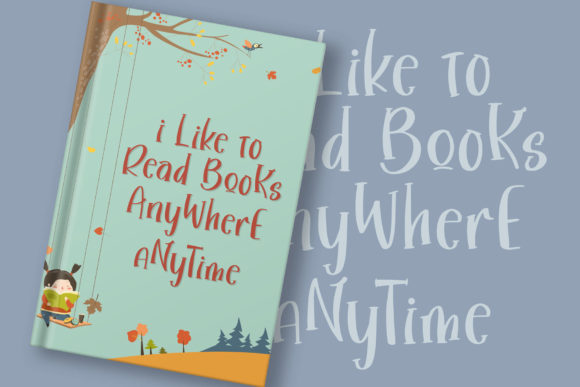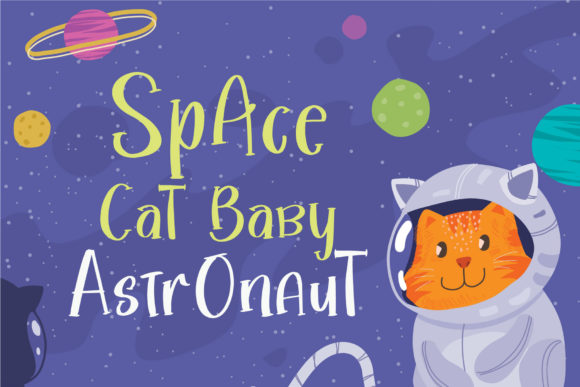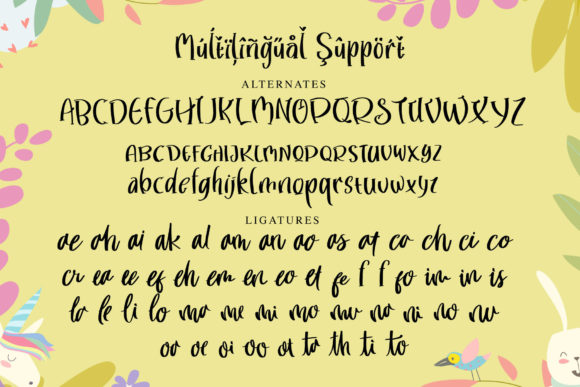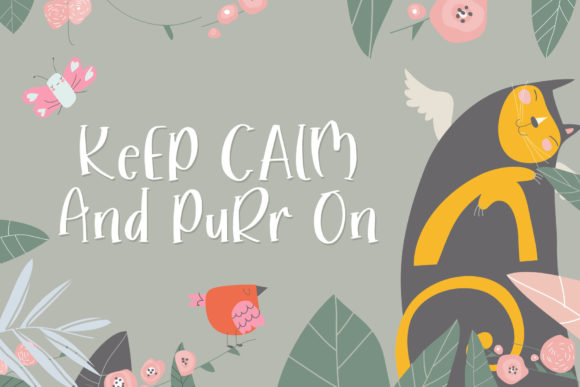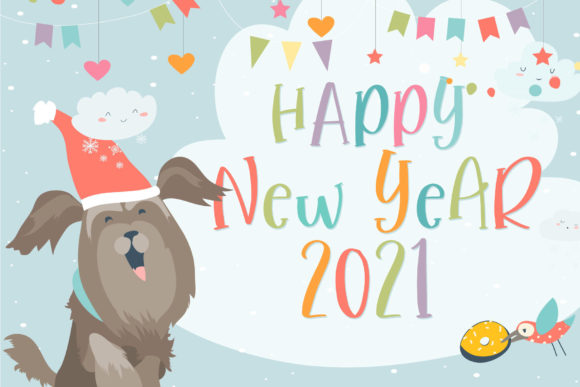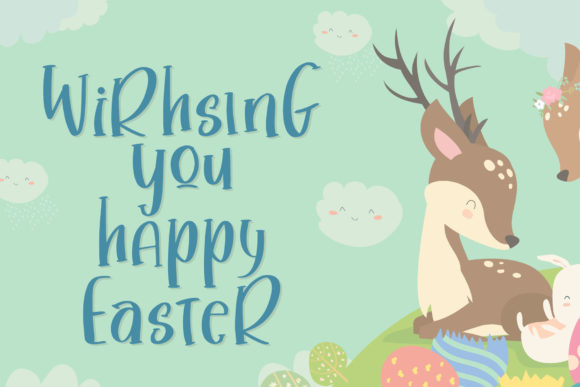
Introduction to Rosted Charm Font
Have you ever stumbled upon a design project that sparks your creativity and makes you feel like anything is possible? For many designers, this moment is a moment of pure joy. It’s the moment when a new idea starts to take shape, and the possibilities become endless. For me, that moment often starts with the perfect font – and the Rosted Charm Font is one of those game-changers.
| 📌 Product Name | Rosted Charm Font |
| 👤 Author | Alit Design |
As a valuable addition to any designer’s toolkit, the Rosted Charm Font is a playful and quirky handwritten font that adds a touch of whimsy to any project. Whether you’re working on a free download, a high-quality design resource, or a creative project that requires a bit of personality, this font is sure to bring it to life.
With its transparent background and high-quality design, the Rosted Charm Font is a must-have for any designer looking to add a bit of charm to their next project. So why settle for a generic font when you can add a dash of personality with the Rosted Charm Font?
Key Features of Rosted Charm Font
- Transparent background allows for easy customization and versatility
- Includes a range of characters and glyphs for seamless integration into your design
- Unique charm-inspired design elements, ideal for adding a touch of whimsy to your project
Honest Review: Rosted Charm Font
I recently had the chance to work with the Rosted Charm Font, and I must say, I was impressed. This font is a great addition to any designer’s toolkit, offering a unique and charming aesthetic that’s perfect for creative projects.
What works well: ✨ The Rosted Charm Font is incredibly versatile, with a wide range of applications, from titles and headings to body text. The font’s high quality is evident in its crisp lines and smooth curves, making it a great choice for both digital and print projects.
Some notable features include:
- High-quality design, perfect for professional projects
- Transparent background, allowing for easy layering and manipulation
However, I did encounter a few limitations: ⚠️ The font is not ideal for very small text sizes, as the characters can become difficult to read. Additionally, the font’s unique style may not be to every designer’s taste.
Overall, I’m very impressed with the Rosted Charm Font. Its high quality, versatility, and unique style make it a valuable addition to any design resource. Whether you’re working on a creative project or just looking for a new font to add to your collection, the Rosted Charm Font is definitely worth checking out.
Tips for Getting the Most Out of Rosted Charm Font
For the best results, use the Rosted Charm Font in conjunction with other high-quality design elements, such as graphics and images. Experiment with different font sizes and colors to create unique and eye-catching designs.
Common Use Cases for Rosted Charm Font
The Rosted Charm Font is perfect for a wide range of creative projects, including invitations, posters, and business cards. Its high quality and transparent background make it ideal for designs that require a touch of elegance and sophistication.
Q: Is Rosted Charm Font suitable for high-quality design projects?
Yes, Rosted Charm Font is designed to be a high-quality font, perfect for use in creative projects that require a unique and elegant look. With its smooth lines and refined details, Rosted Charm Font is ideal for use in brochures, magazines, websites, and other design materials that demand a high level of sophistication.